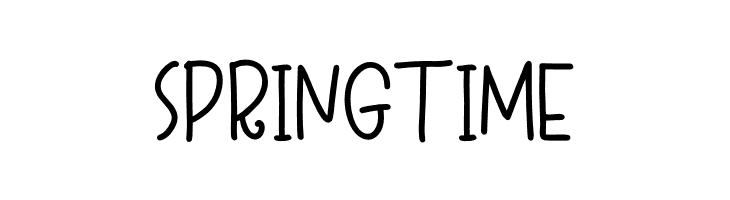
A playful, handwritten font with a whimsical and elegant style.
A playful, hand-drawn style with bold, rounded letterforms.
A bold, playful font with a whimsical, hand-drawn style.
A playful, handwritten font with smooth, rounded edges and a casual style.
A playful, bold, and hand-drawn font with rounded edges.